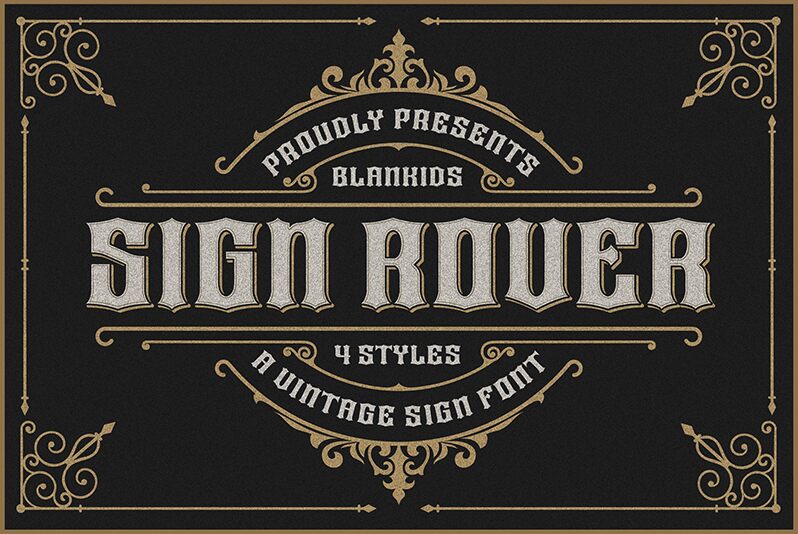
Sign Rover Layered
Sign Rover, a bold and vintage-inspired font designed by Bangkit Tri Setiadi of Blankids Studio, exudes an unforgettable, attention-grabbing presence. This condensed display typeface captivates with its striking letterforms, blending classic sensibilities with a modern edge. The unique, layered design adds depth and dimension, lending an air of sophistication and timelessness to any project.
The distinctive character of Sign Rover makes it a versatile choice for a wide range of applications, from eye-catching headlines and logos to impactful branding and packaging designs. Its bold, condensed structure ensures optimal legibility, while the vintage-inspired aesthetic adds a touch of nostalgic charm. Whether you're crafting a retro-inspired editorial layout, designing a contemporary product label, or seeking to elevate your brand's visual identity, Sign Rover is a font that commands attention and leaves a lasting impression.
Sign Rover by Blankids Studio